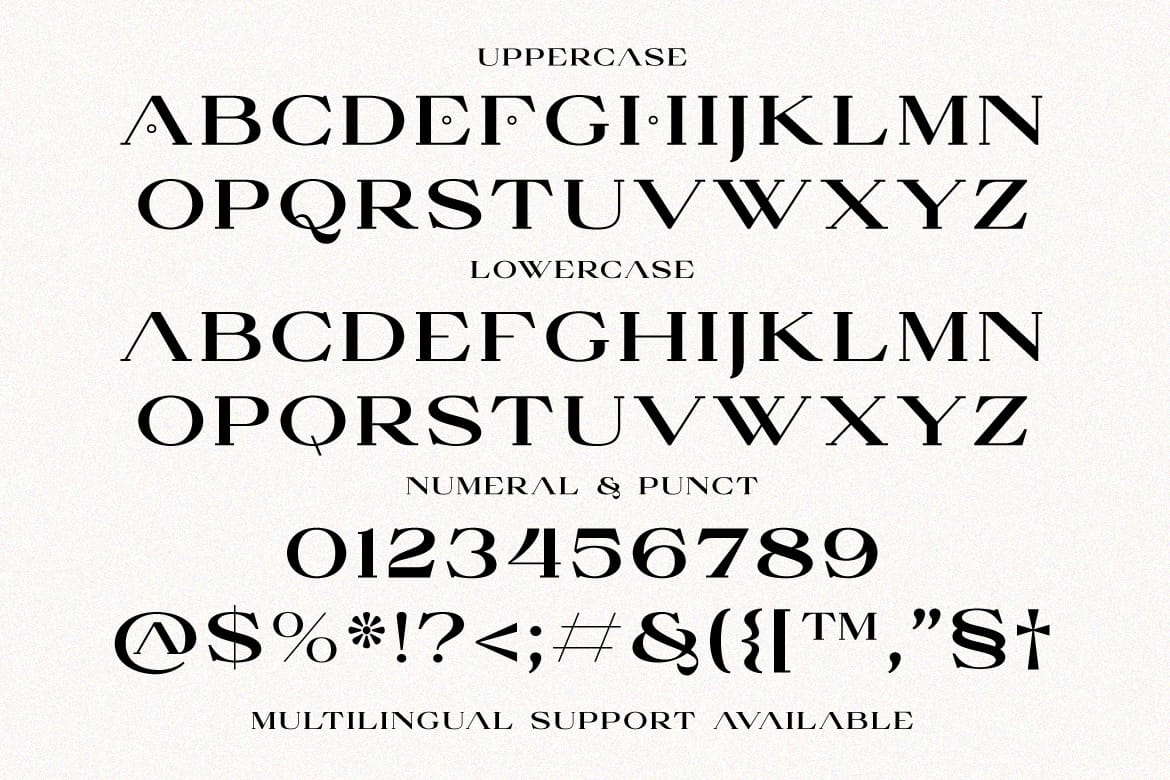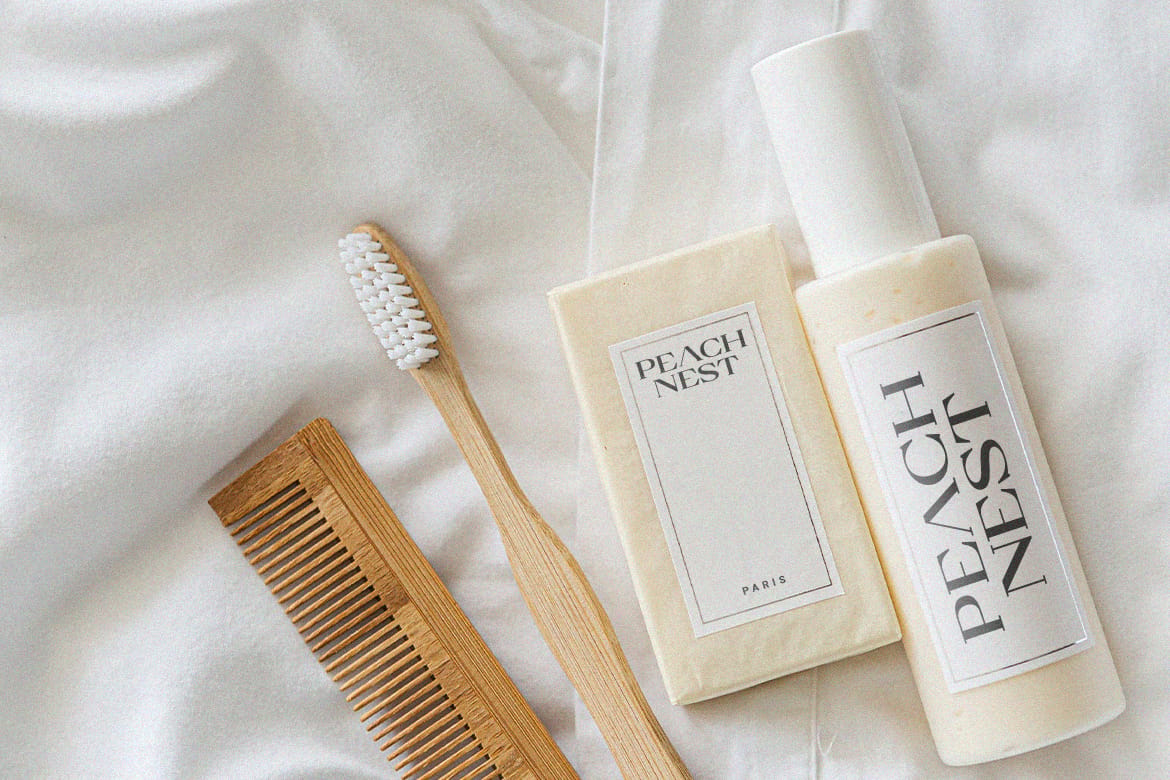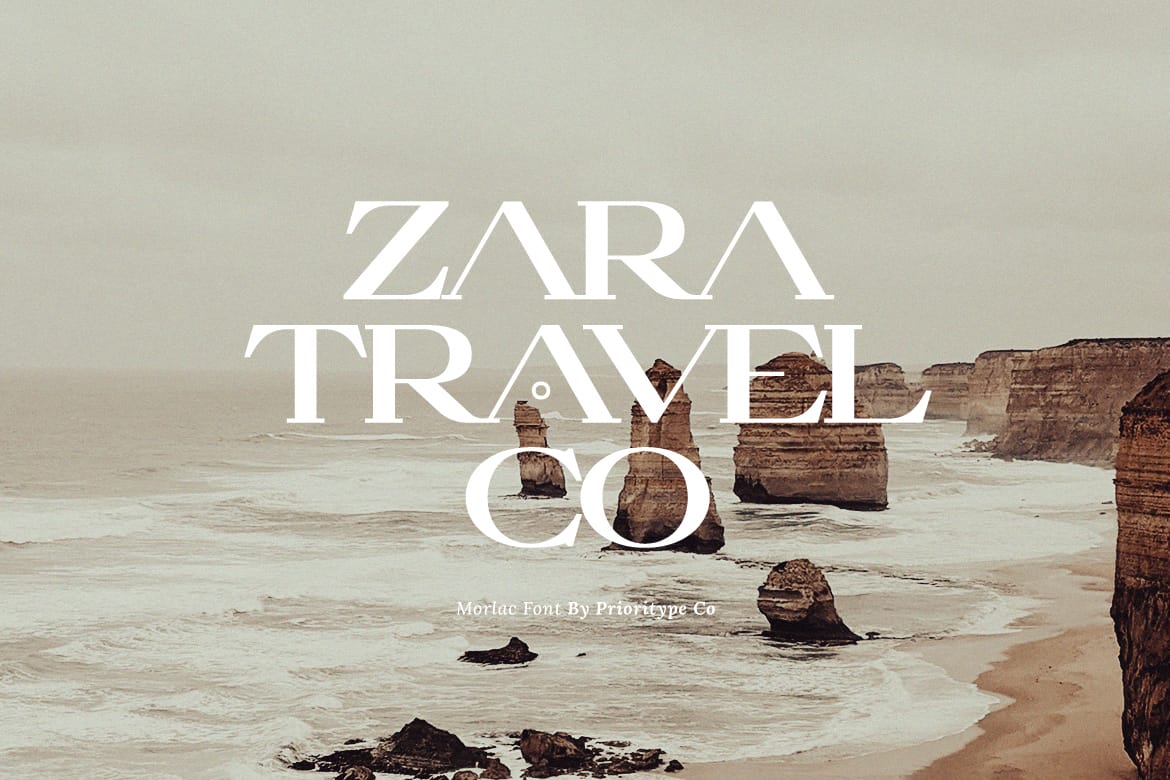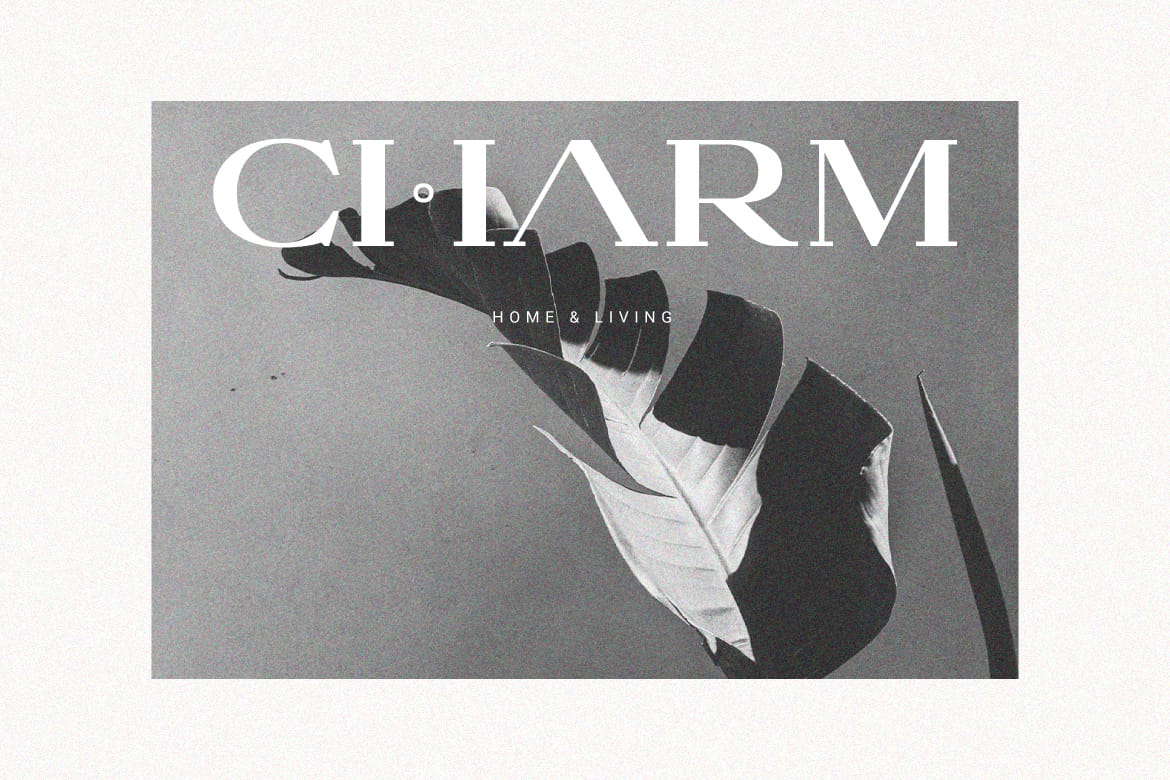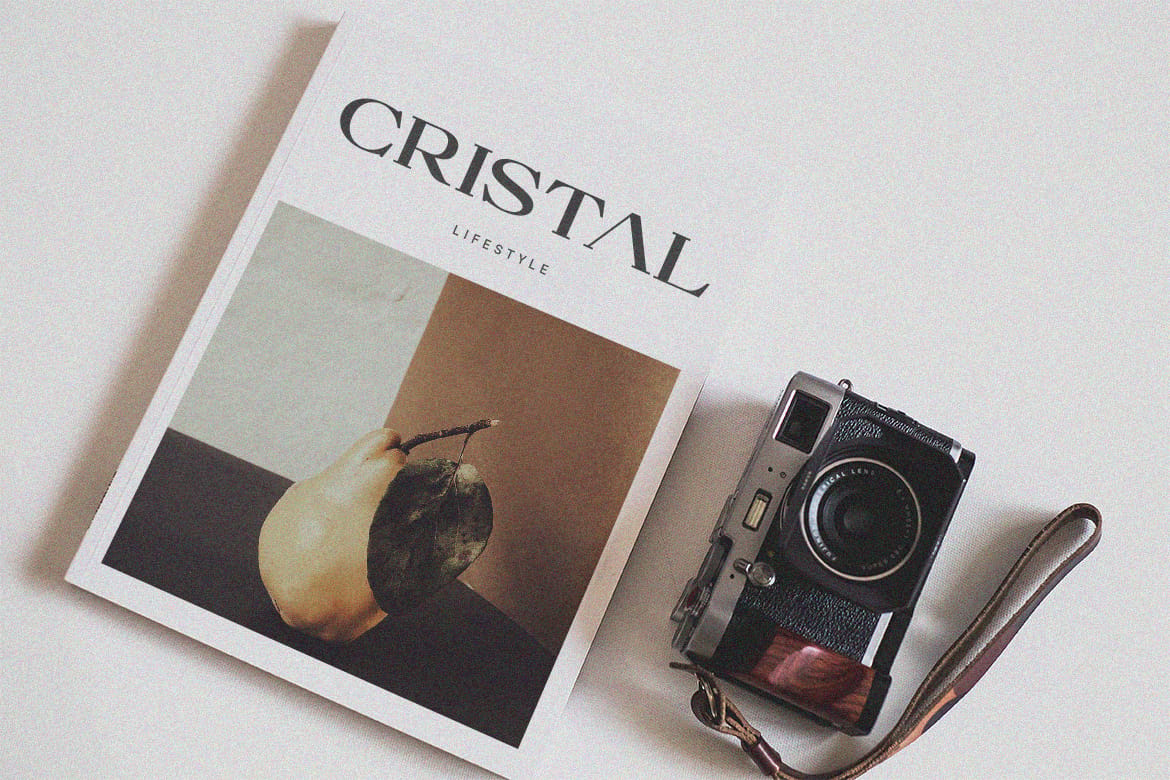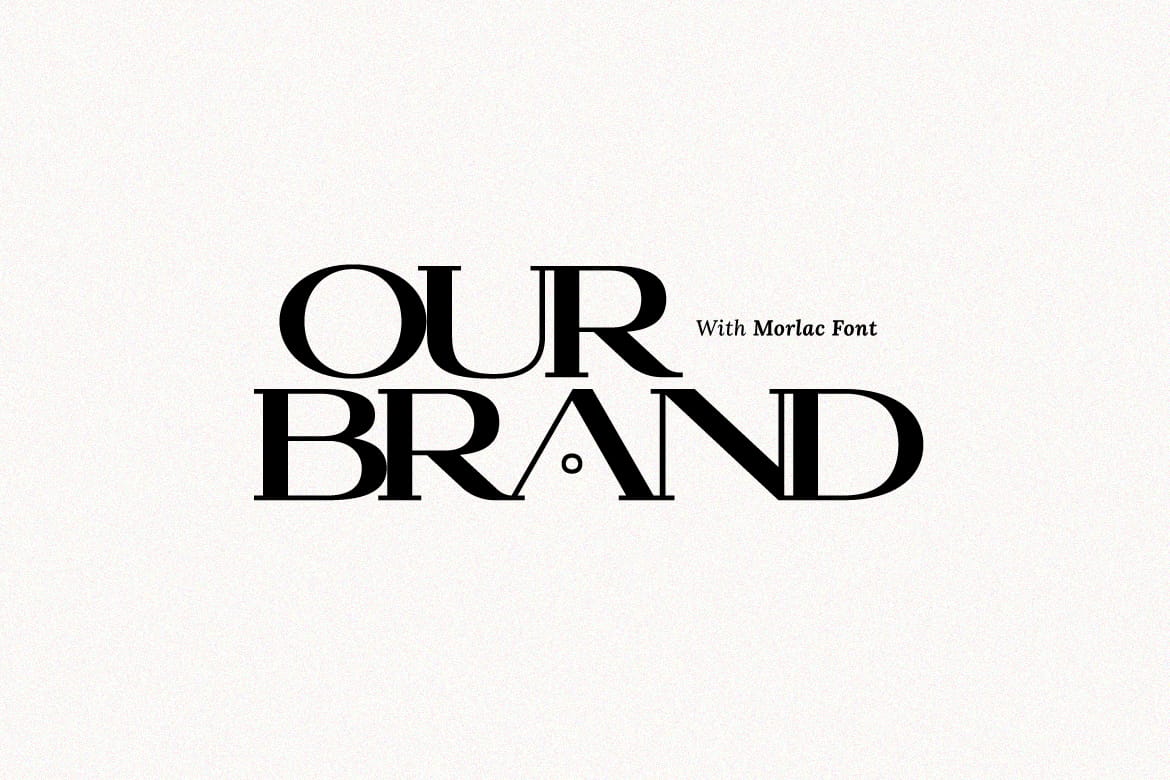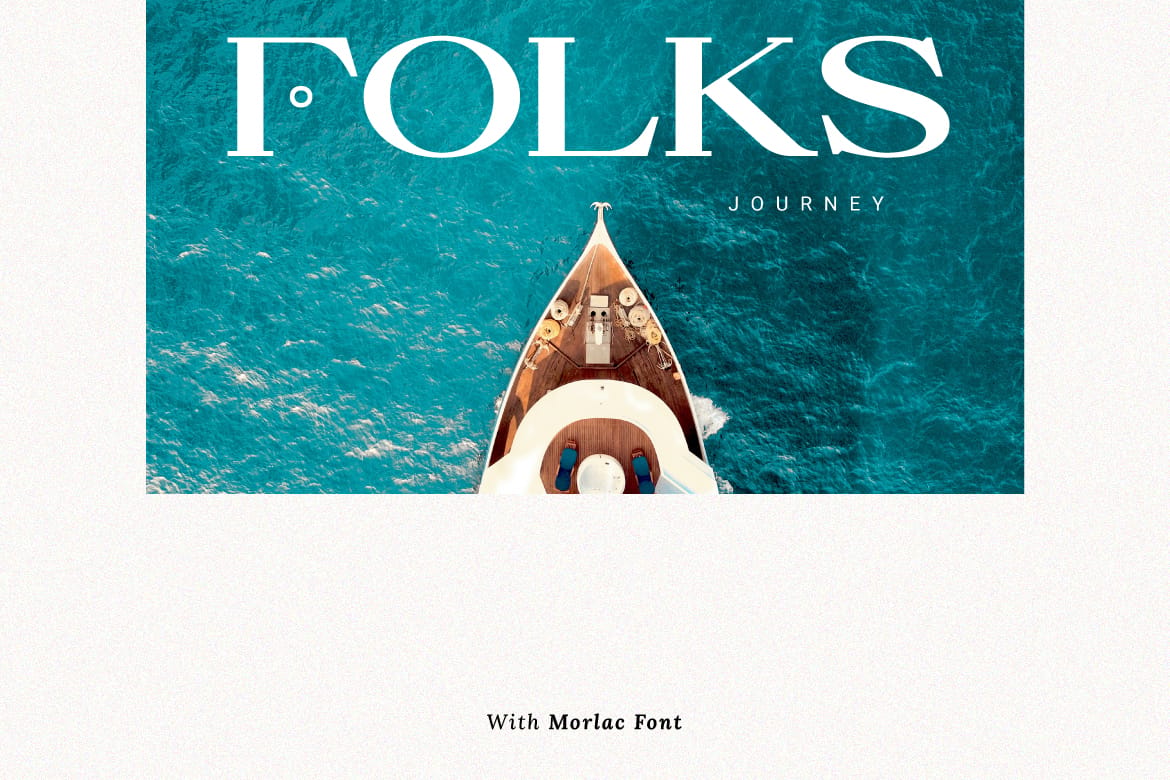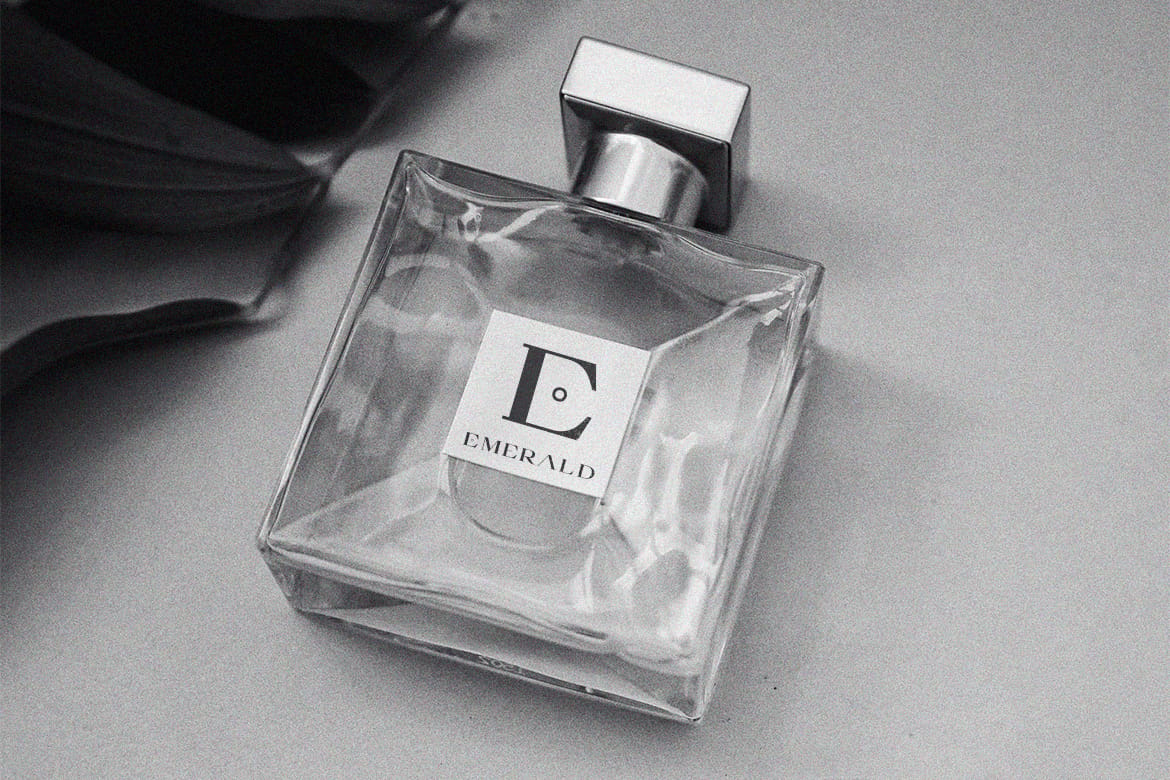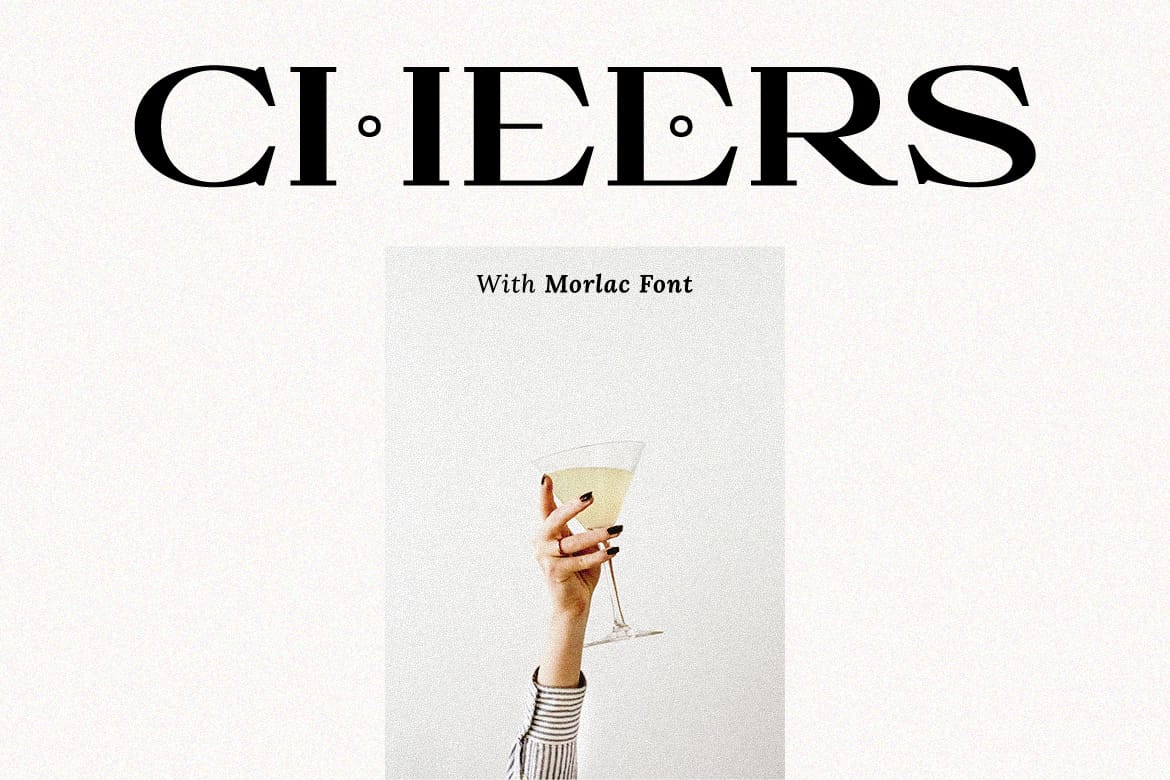
Morlac - Modern Serif by Prioritype Co.
A simple modern serif font that looks luxurious. This is an all caps font. But there are some differences in certain letters such as A, E, F, H and Q. It is suitable for branding designs, logos, headlines etc.
Features: Uppercase, Lowercase, Numeral, Punctuation & Multilingual.
- All-caps with unique letter variants
- Multilingual and branding-ready